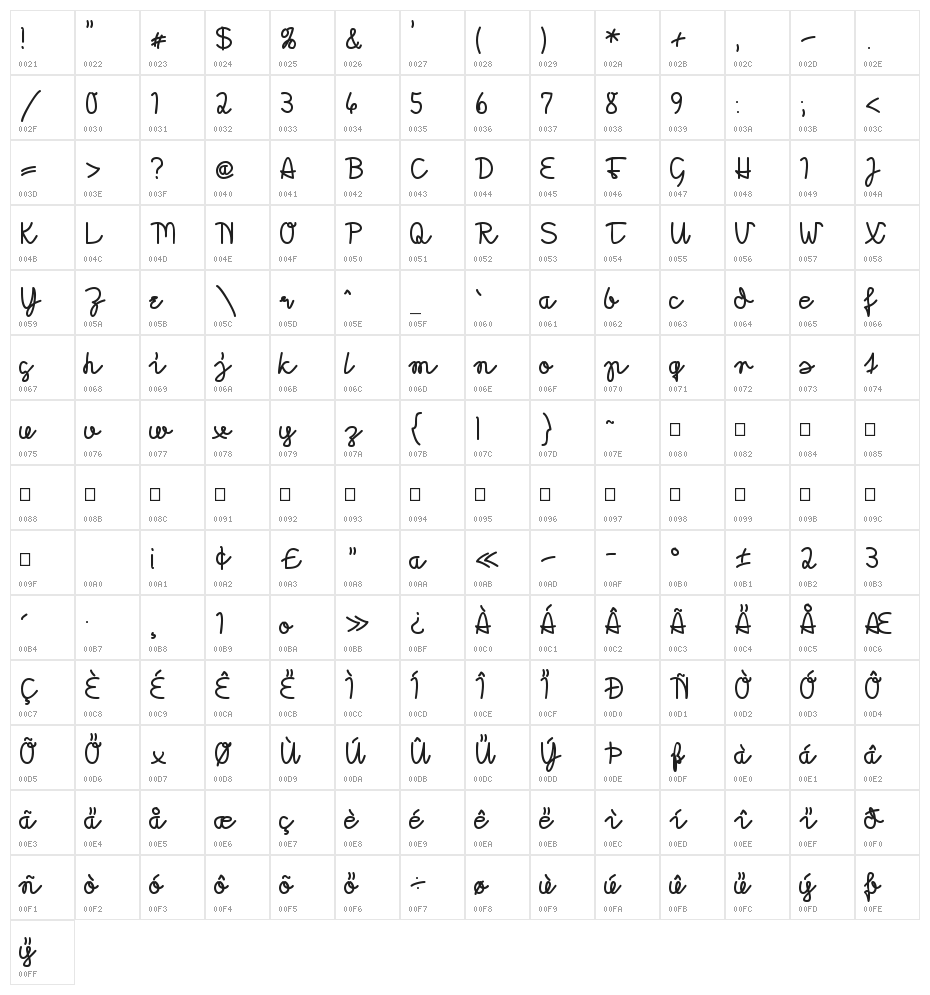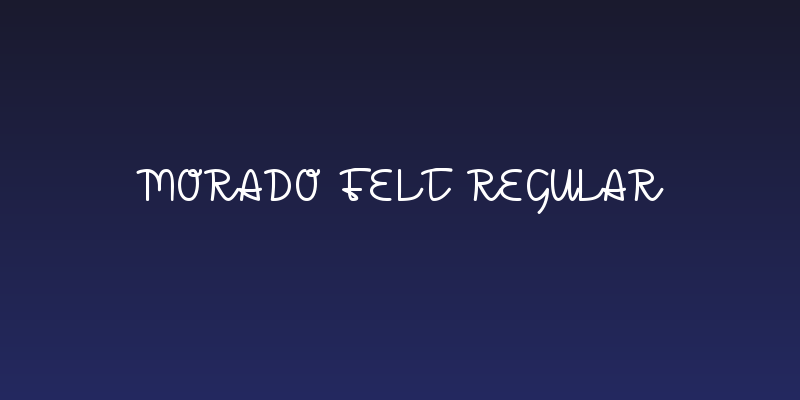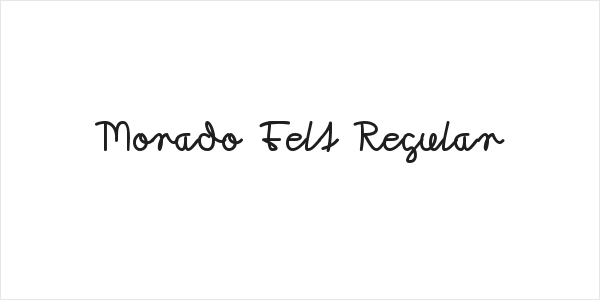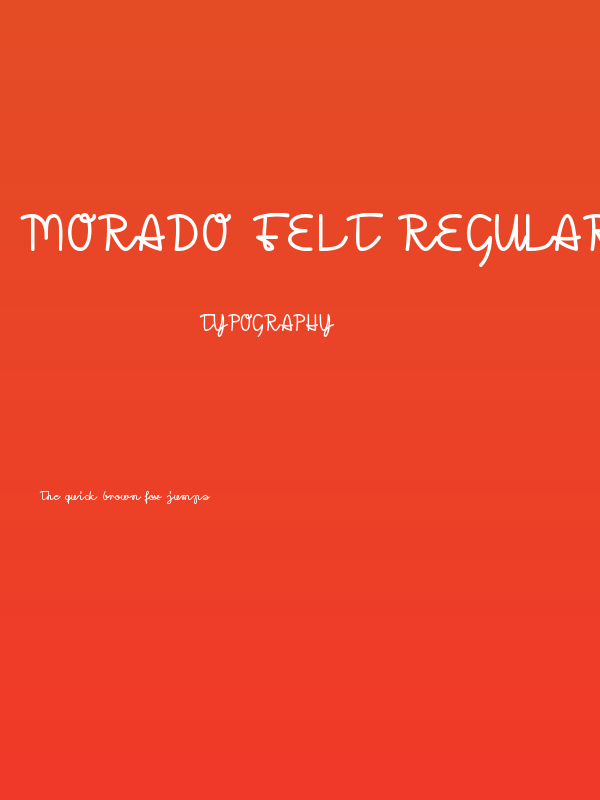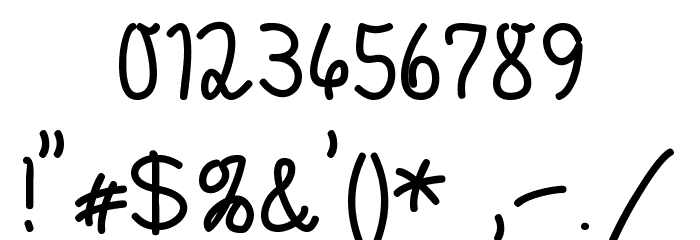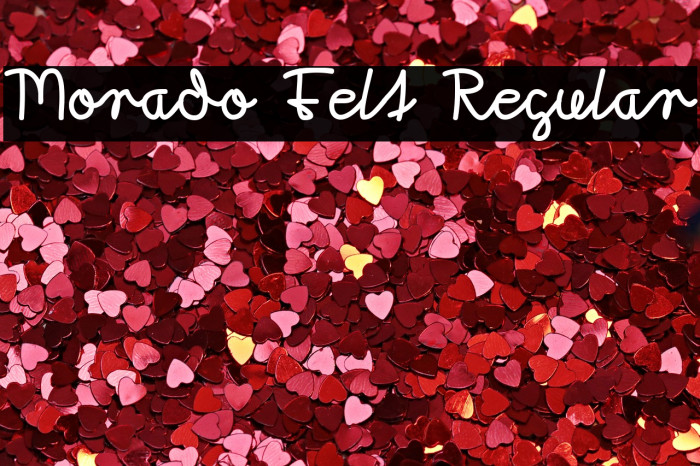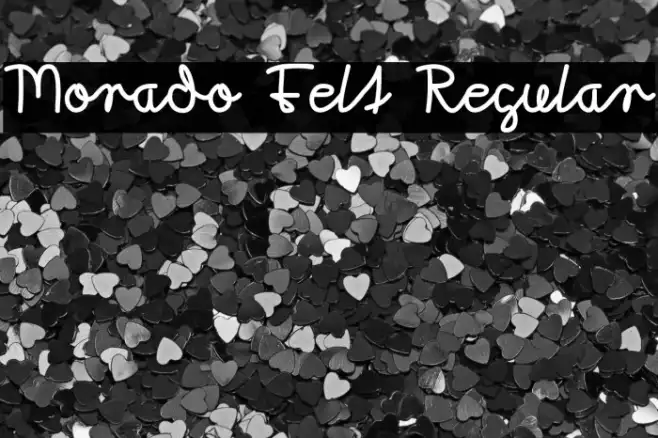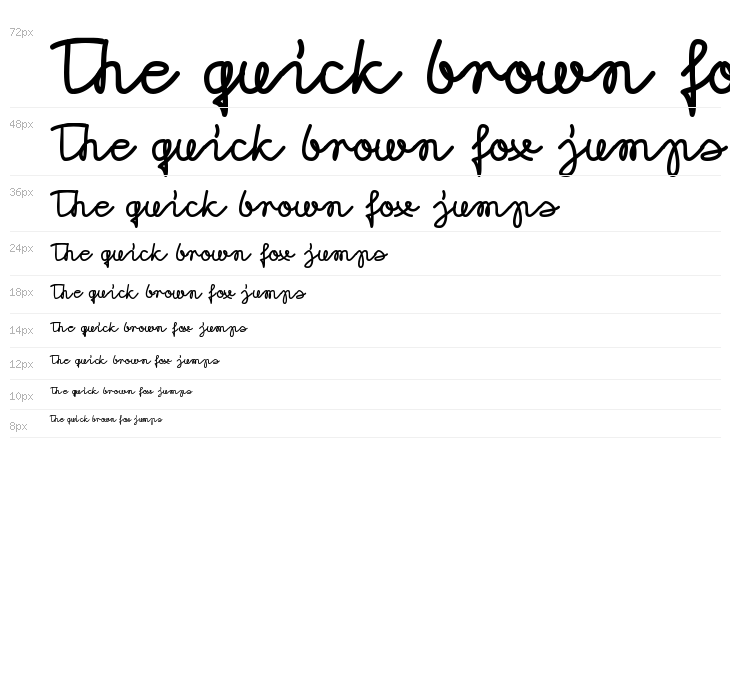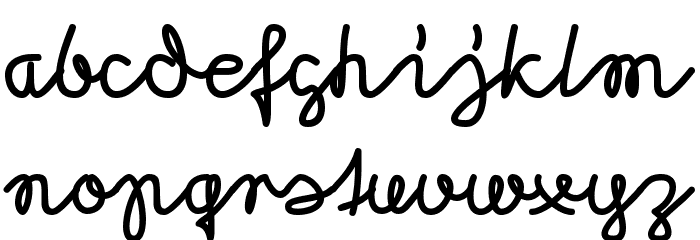
Morado Felt Regular Font
Morado Felt Regular Description
This font features a playful and casual handwritten style, characterized by its smooth, flowing curves and slightly irregular letterforms. The uppercase letters are bold and prominent, while the lowercase letters maintain a consistent flow, giving the font a cohesive and organic feel. The numerals are clear and easy to read, matching the overall style of the alphabet. Special characters are integrated seamlessly, maintaining the font's whimsical nature. This font is ideal for projects that require a personal touch, such as invitations, greeting cards, or creative branding.
| Use Case | Creative branding, invitations, personal projects. |
| Proposed Projects | Ideal for invitations, greeting cards, creative branding, and personal projects. |